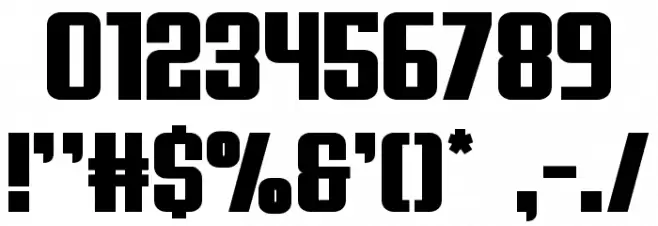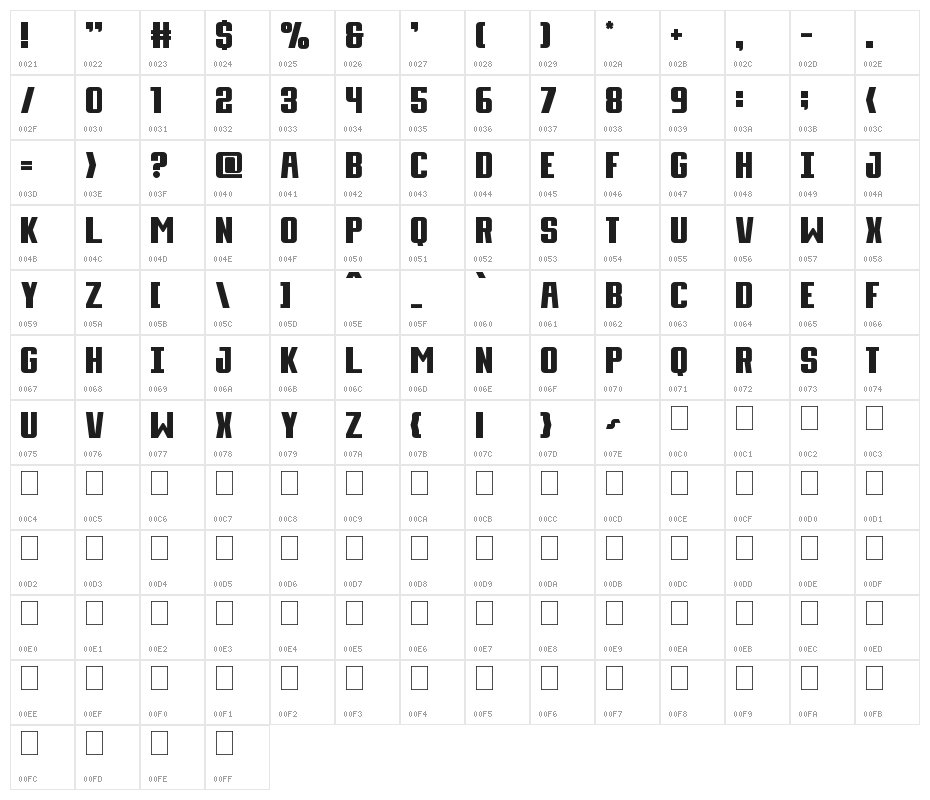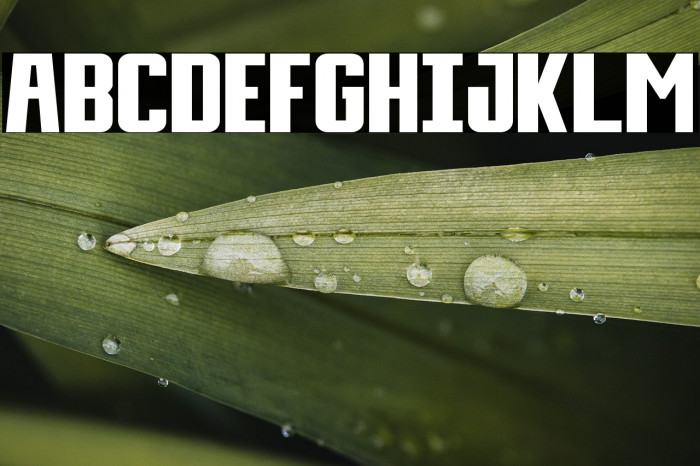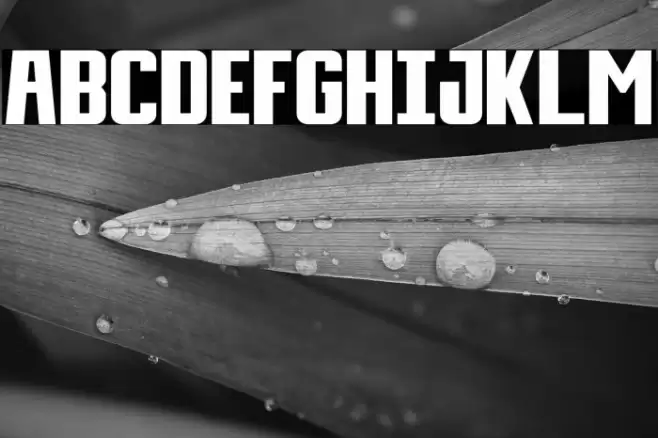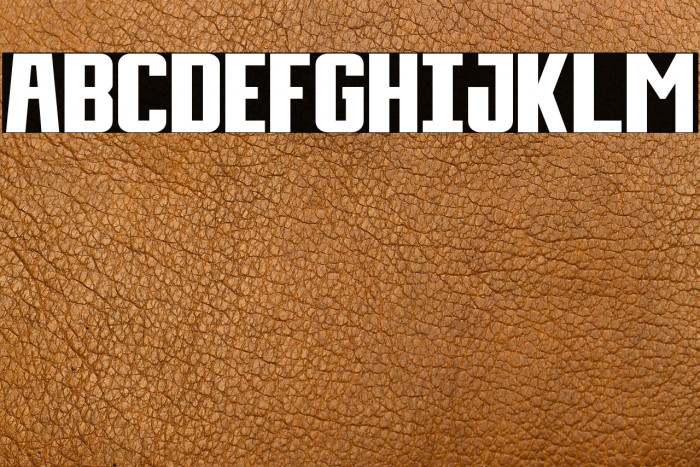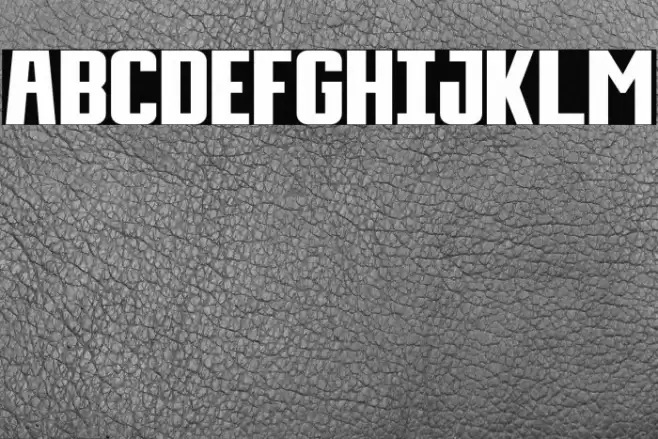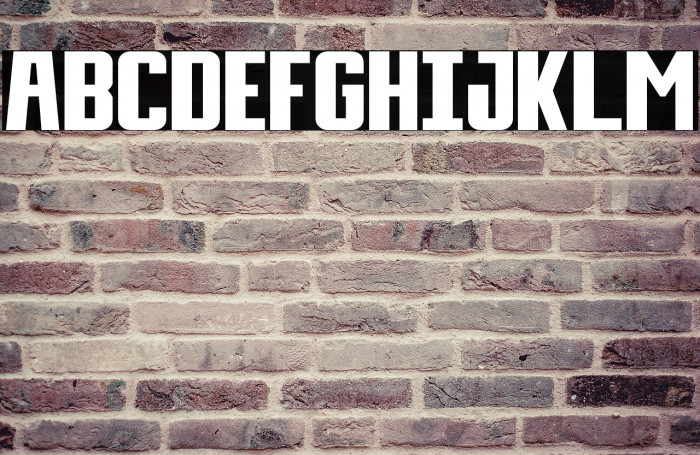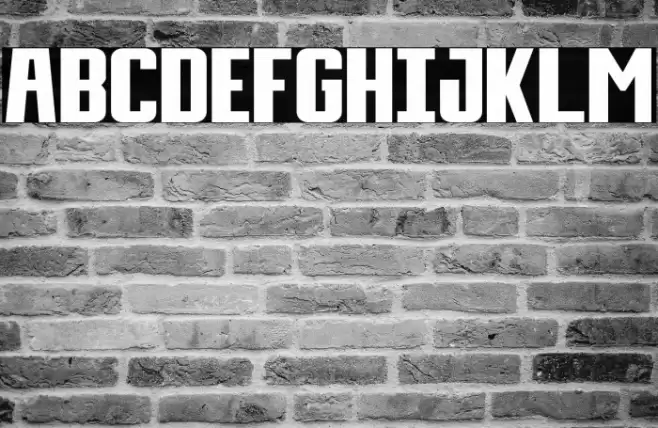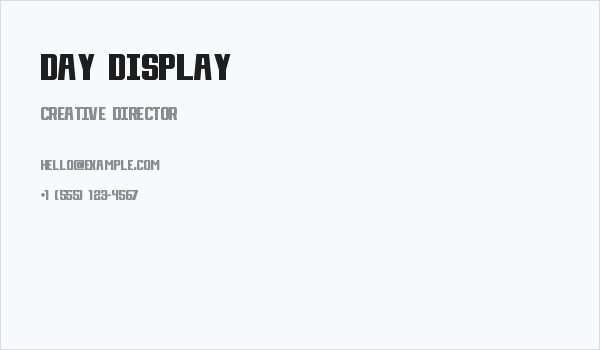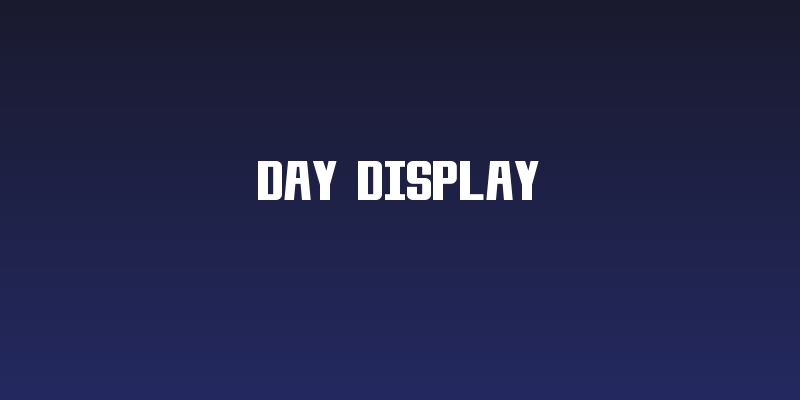
Day Display Font
Day Display Description
This font features a bold and impactful design, characterized by its strong, block-like structure. The uppercase letters are uniform in height, with a slightly condensed width that gives it a compact appearance. The strokes are thick and consistent, providing a sense of stability and strength. The numbers and special characters maintain the same boldness, ensuring a cohesive look across all characters. This font's design is straightforward, with minimal decorative elements, focusing on clarity and readability.
| Proposed Projects | Ideal for posters, headlines, and branding materials where a strong, impactful presence is needed. |